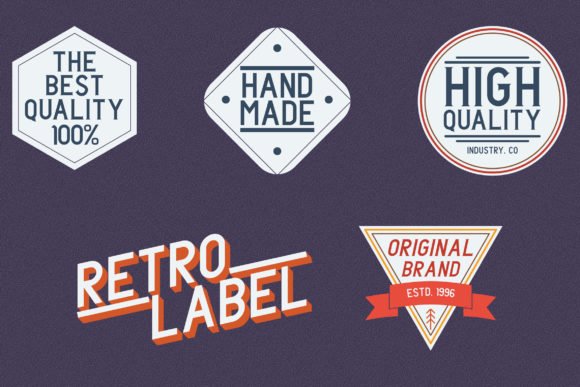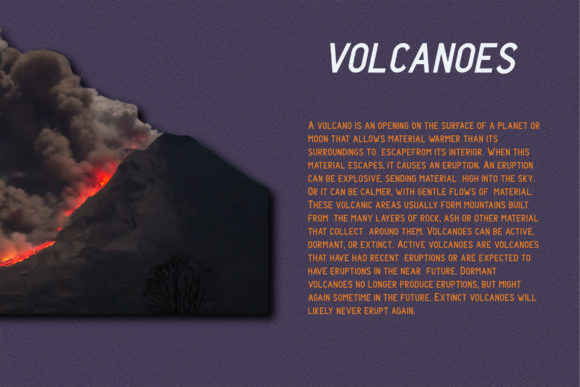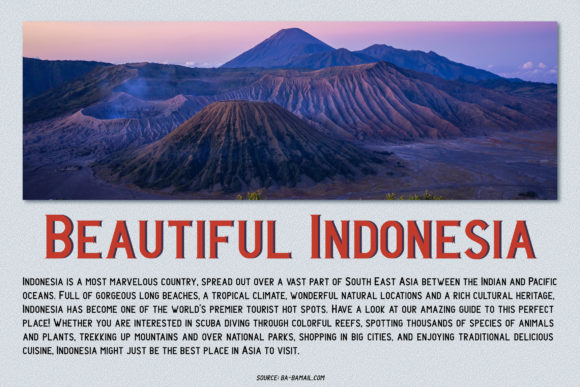
The Perfect Blend of Style and Functionality
Have you ever stared at a blank page, struggling to find the perfect font to bring your design to life? The spark of creativity hits, and suddenly, a font appears in your mind’s eye – bold, elegant, and uniquely yours. This is exactly what happened to the designers behind the Custer Family Font, a stunning collection of handmade fonts that will elevate your designs to new heights.
The Custer Family Font is a versatile set of serif and sans fonts, expertly crafted for a wide range of applications – from eye-catching logos and ads to striking headings and posters. This font family is a valuable addition to any designer’s toolkit, offering endless possibilities for creative expression.
Custer Family Font Key Features
- Font Family: The Custer Family Font includes five font styles: Custer, Custer Script, Custer Sans, Custer Sans Condensed, and Custer Display.
- Unique Characteristics: The Custer Family Font features a unique blend of classic and modern design elements, with intricate details and subtle texture effects.
- Character Set: Includes a comprehensive character set, including Latin, Greek, and Cyrillic alphabets, as well as a range of punctuation and symbol glyphs.
Custer Family Font Review
I recently had the chance to work with the Custer Family Font, and I must say it’s a unique addition to any design project. ✨ One of the things that stood out to me is the variety of weights and styles available, making it easy to find the perfect fit for your design. The font’s rustic, classic feel is reminiscent of traditional typography, which can add a touch of elegance to any layout.
Here are some of the key strengths and limitations I observed:
- ✨ Wide range of weights and styles, including a bold, italic, and regular font face
- ✨ Classic, rustic feel that’s perfect for historical or vintage-themed projects
- ✨ Good legibility, even at smaller font sizes
- ⚠️ Limited character set, which may cause issues for non-English language support
- ⚠️ Some users may find the font’s classic feel too dated or overused
Overall, I think the Custer Family Font is a solid choice for designers looking to add a touch of classic elegance to their projects. While it may not be the most versatile font, its unique style and wide range of weights make it a great option for specific design needs. With a little creativity and experimentation, the Custer Family Font can help bring your designs to life.
For the most effective use of the Custer Family Font, use it for:
1. Creating a vintage or rustic feel.
2. Adding a touch of elegance to invitations or certificates.
3. Creating a cohesive brand identity.
4. Adding a unique touch to wedding or event materials.